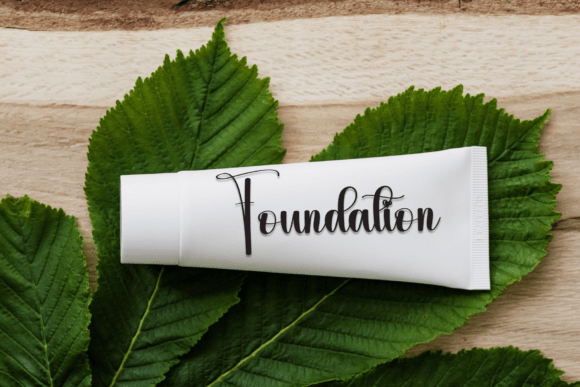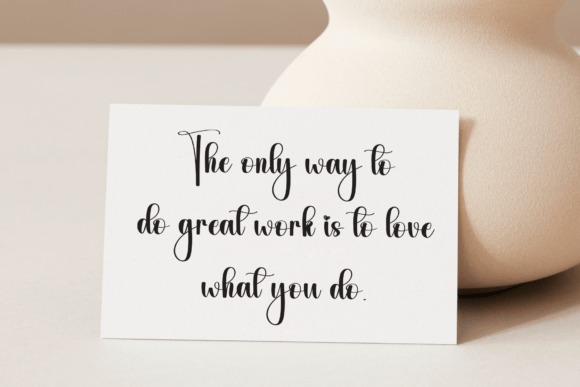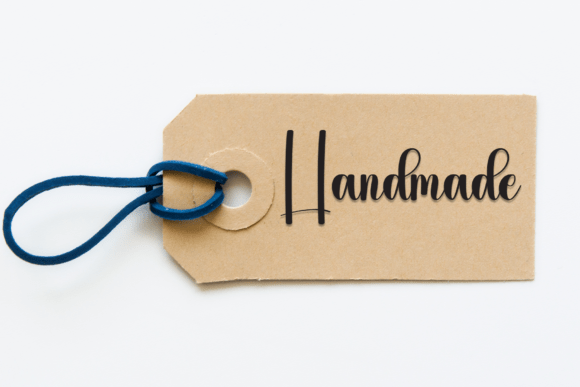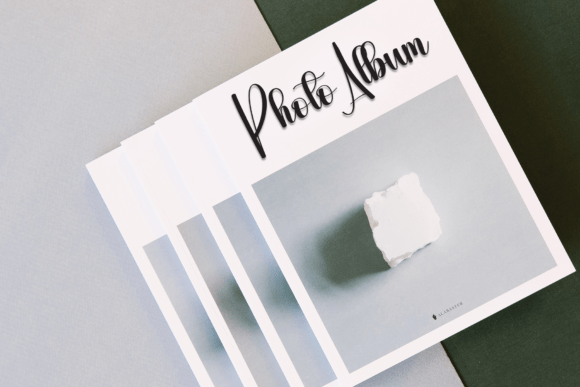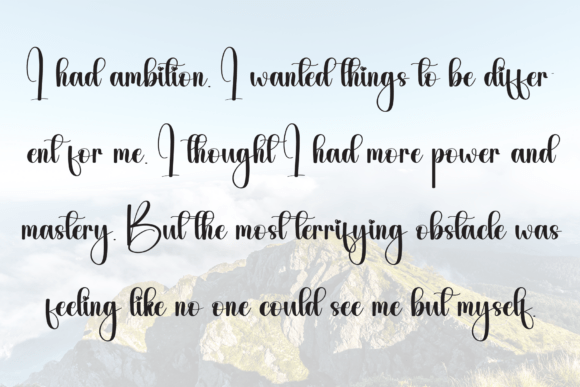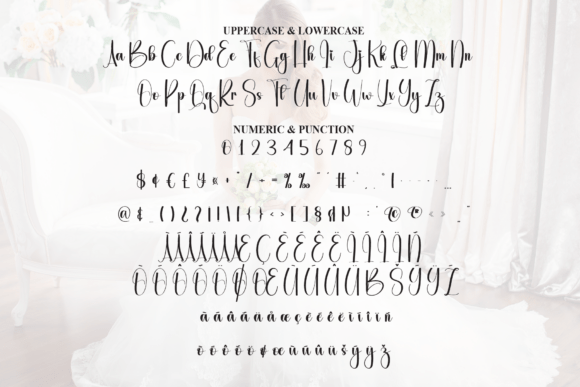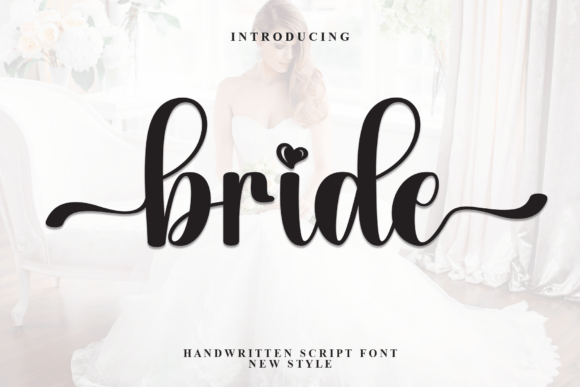
Bride Font: Elevate Your Designs with Artistic Flair and Contemporary Elegance
In the world of typography, few fonts manage to capture the essence of hand-painted calligraphy while exuding a modern and sophisticated vibe. Bride Font is one such exceptional typeface that seamlessly blends artistic flair with contemporary elegance, making it a versatile choice for designers and crafters alike. In this article, we’ll explore the unique features of Bride Font, its uses, and why it’s an excellent addition to your typography collection.
The Unique Features of Bride Font
Bride Font is a stylish script font characterized by its fluid brush strokes, dynamic curves, and expressive letterforms. These features work in harmony to create a font that not only captures the essence of hand-painted calligraphy but also brings a modern twist to the table. The fluid brush strokes give the font a natural, hand-crafted feel, while the dynamic curves and expressive letterforms add a touch of sophistication and elegance.
Uses of Bride Font
Bride Font is an incredibly versatile typeface that can be used in a variety of design projects. Some of the most popular uses of this font include:
- Logos: Bride Font’s unique blend of artistic flair and contemporary elegance makes it an excellent choice for logos that require a touch of sophistication and creativity.
- Invitations: Whether it’s a wedding invitation, a birthday party, or a baby shower, Bride Font is perfect for creating beautiful and eye-catching invitations that set the tone for any special occasion.
- Packaging: Add a touch of elegance and sophistication to your product packaging with Bride Font. Its unique features make it an excellent choice for product labels, packaging inserts, and more.
- Social Media Graphics: Create stunning social media graphics that stand out from the crowd with Bride Font. Its versatility and visual impact make it perfect for creating engaging social media posts, banners, and more.
Why Choose Bride Font?
So, why choose Bride Font over other script fonts? Here are a few reasons why this font stands out from the rest:
- Visual Impact: Bride Font’s unique features and elegant design make it a font that commands attention. Its visual impact is undeniable, making it perfect for designs that require a touch of sophistication and creativity.
- Versatility: Whether you’re designing a logo, invitation, or social media graphic, Bride Font is an incredibly versatile typeface that can adapt to any design style.
- Natural Flow: The font’s natural flow and fluid brush strokes give it a hand-crafted feel that’s hard to replicate with other fonts.
- Vibrant Character: Bride Font’s vibrant character and expressive letterforms make it a font that’s full of life and personality.
Tips for Using Bride Font
To get the most out of Bride Font, here are a few tips to keep in mind:
- Pair it with a simple font: Bride Font’s unique features can be overwhelming if paired with another ornate font. Pair it with a simple font to create a beautiful contrast that makes your design stand out.
- Experiment with colors: Bride Font’s elegant design makes it perfect for a variety of color schemes. Experiment with different colors to find the perfect combination that matches your brand or design style.
- Use it sparingly: While Bride Font is perfect for headlines and titles, it can be overwhelming if used excessively. Use it sparingly to create a beautiful visual hierarchy that guides the viewer’s eye.
Bride Font is an exceptional script font that exudes artistic flair and contemporary elegance. Its unique features, versatility, and visual impact make it an excellent choice for designers and crafters looking to elevate their designs. Whether you’re creating a logo, invitation, packaging, or social media graphic, Bride Font is a font that delivers both style and sophistication. With its natural flow and vibrant character, this font is sure to become a staple in your typography collection.